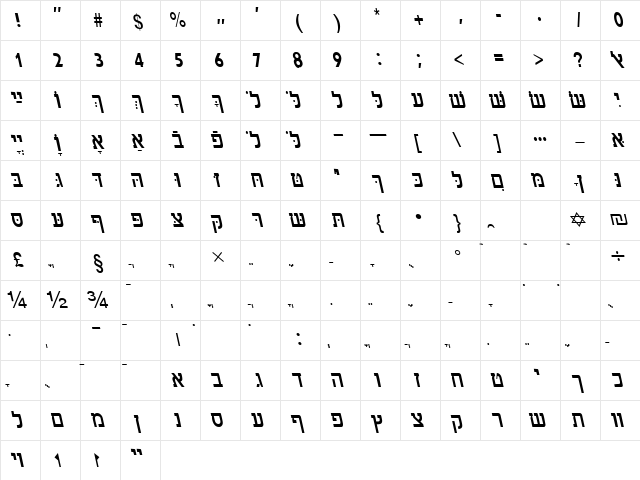
Complete HebrewAaronSSK Italic glyph index. Displaying only characters natively supported by HebrewAaronSSK Italic font.
HebrewAaronSSK is a composed and adaptable typeface that performs quietly and consistently across a wide range of design contexts. The slanted form adds forward momentum and visual energy.